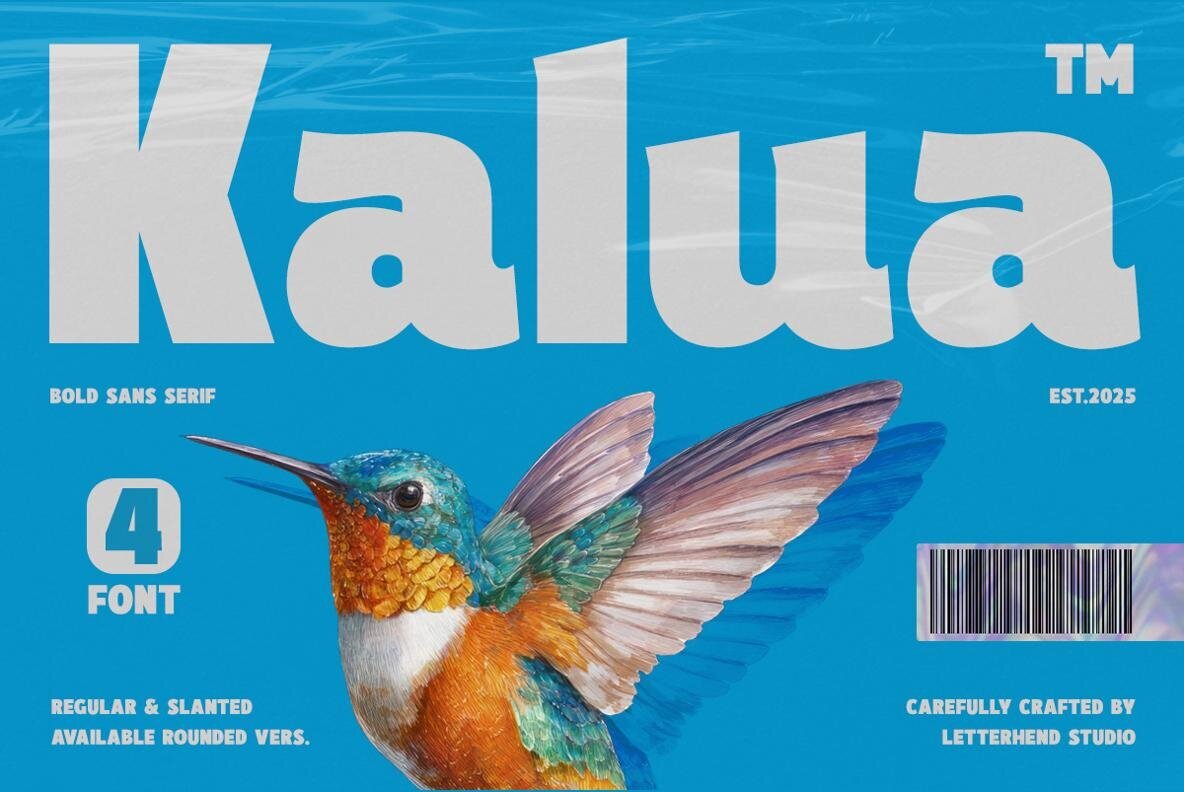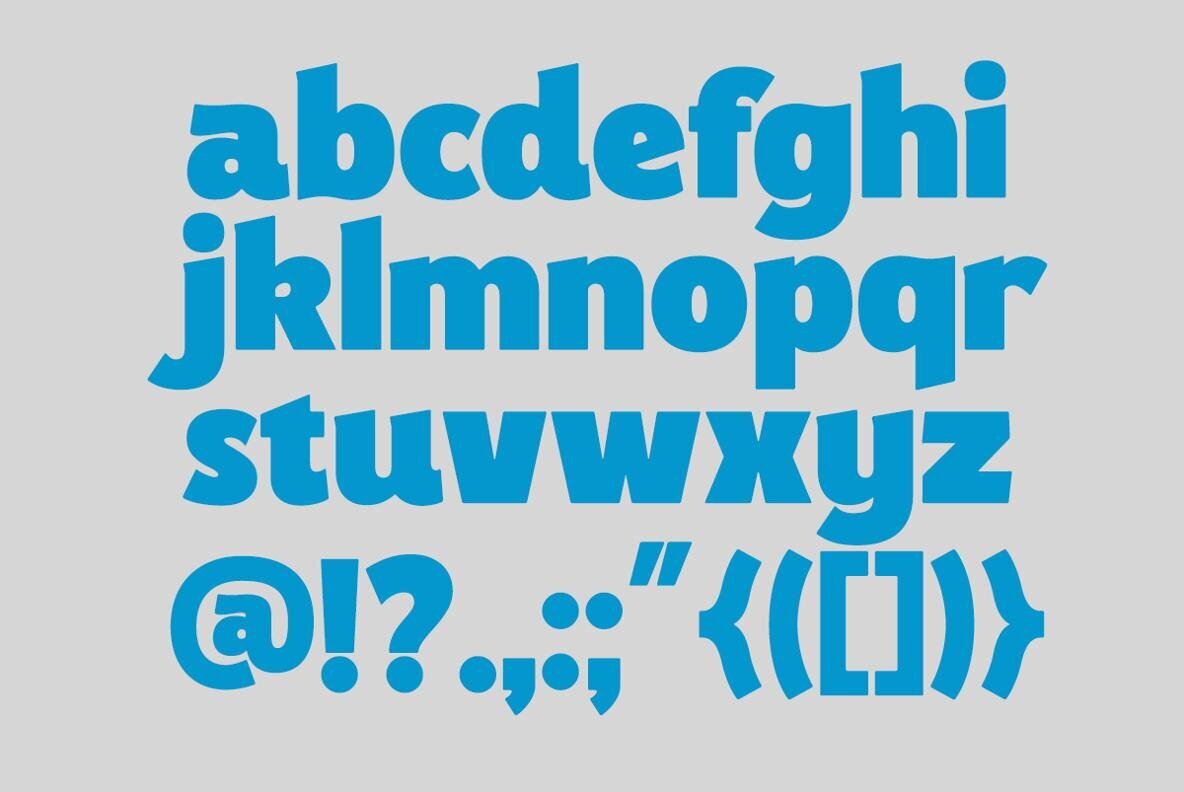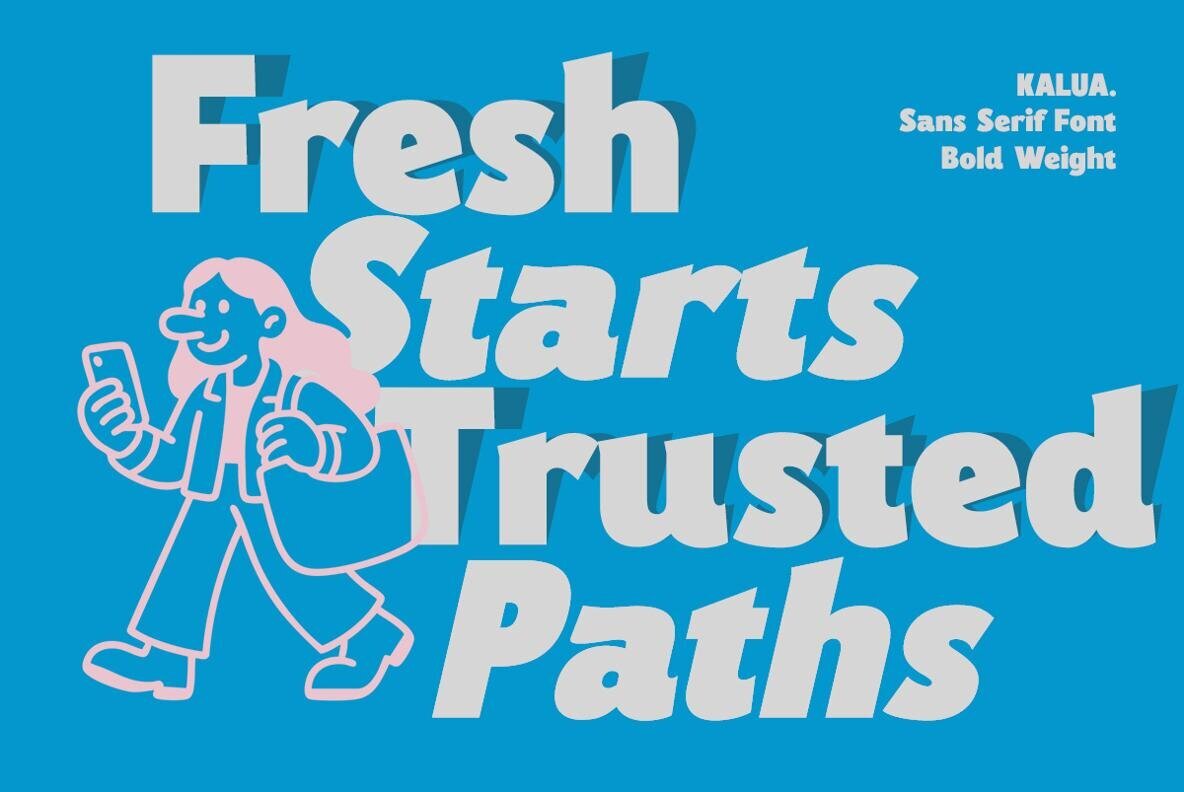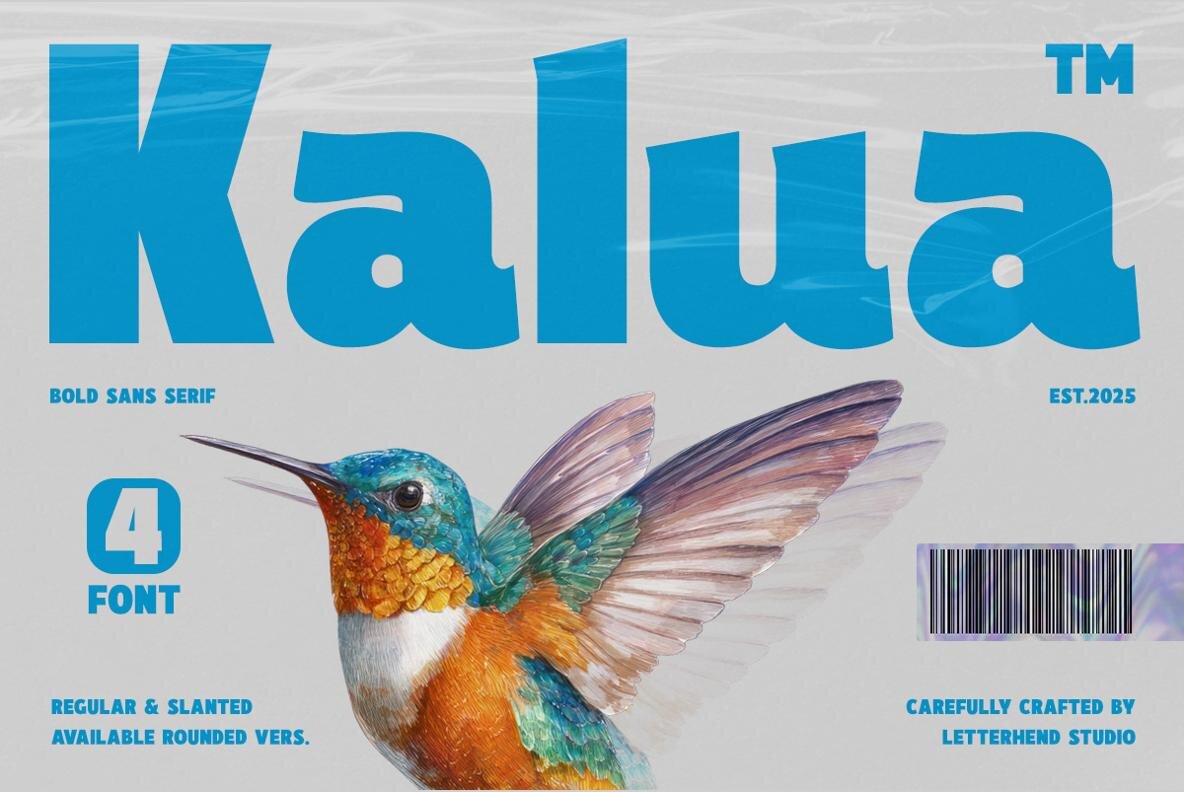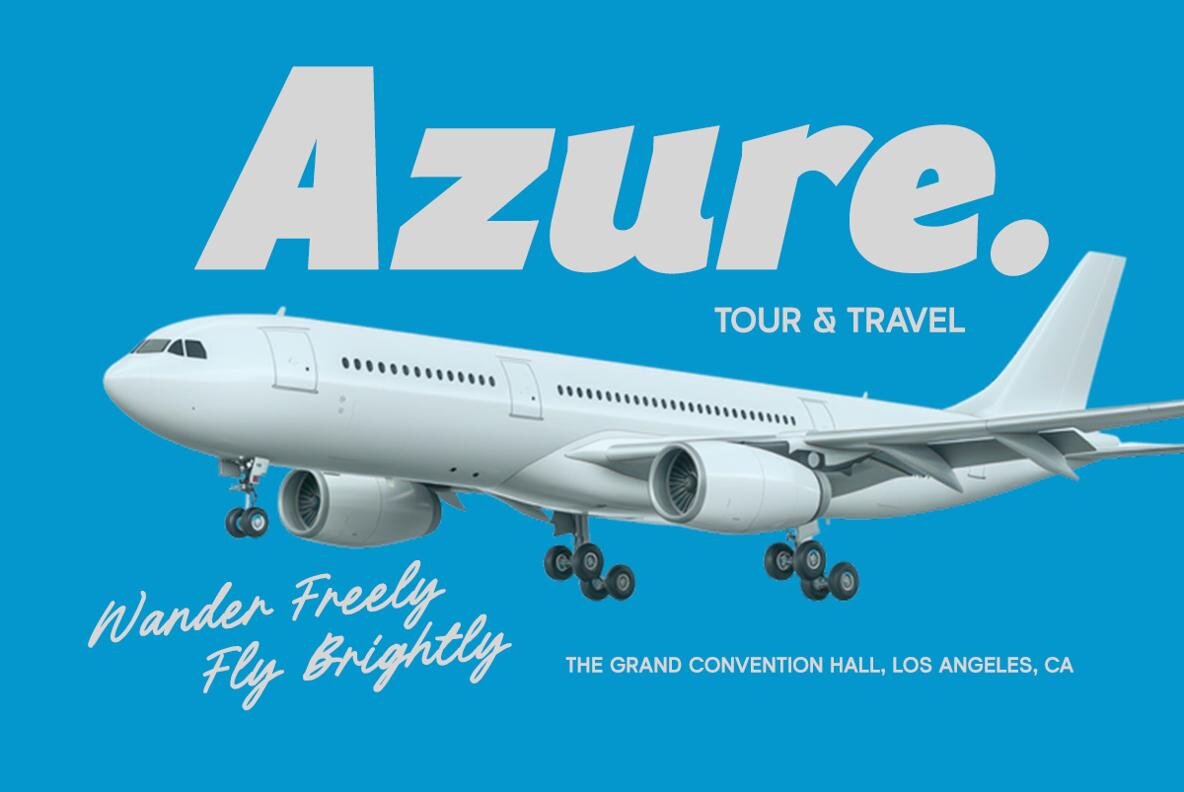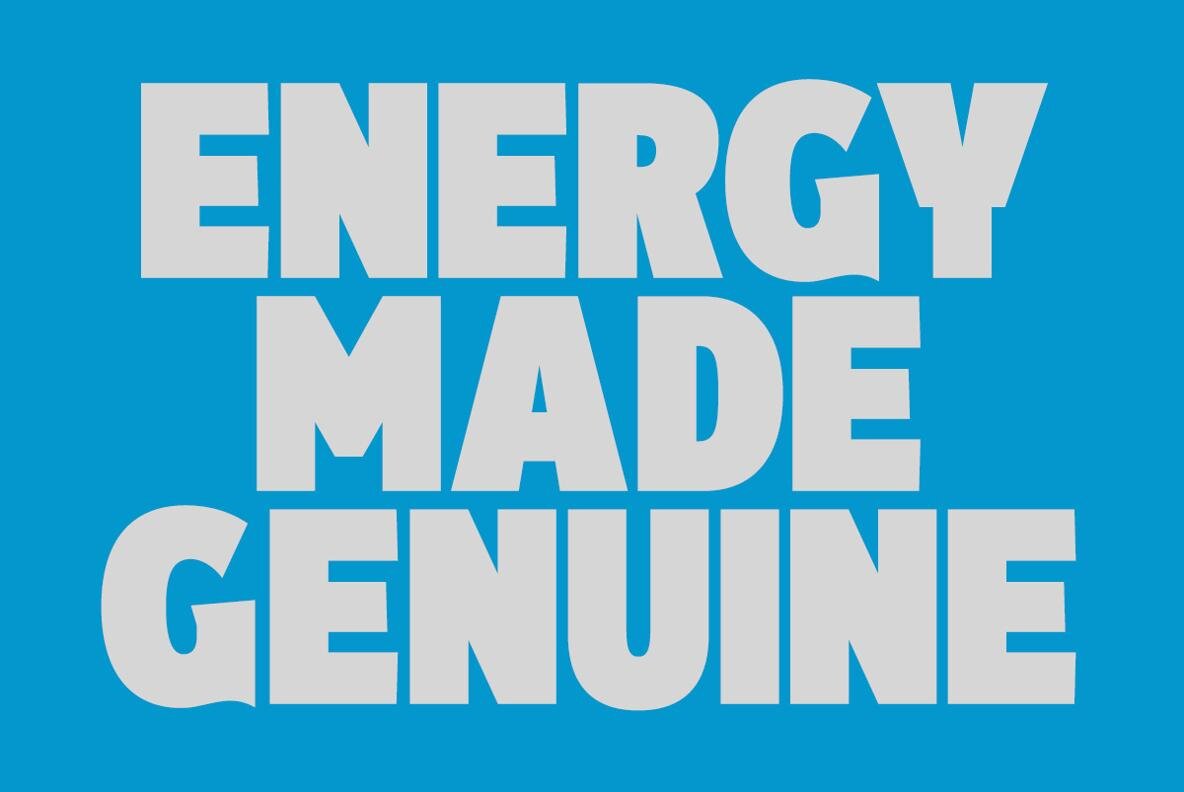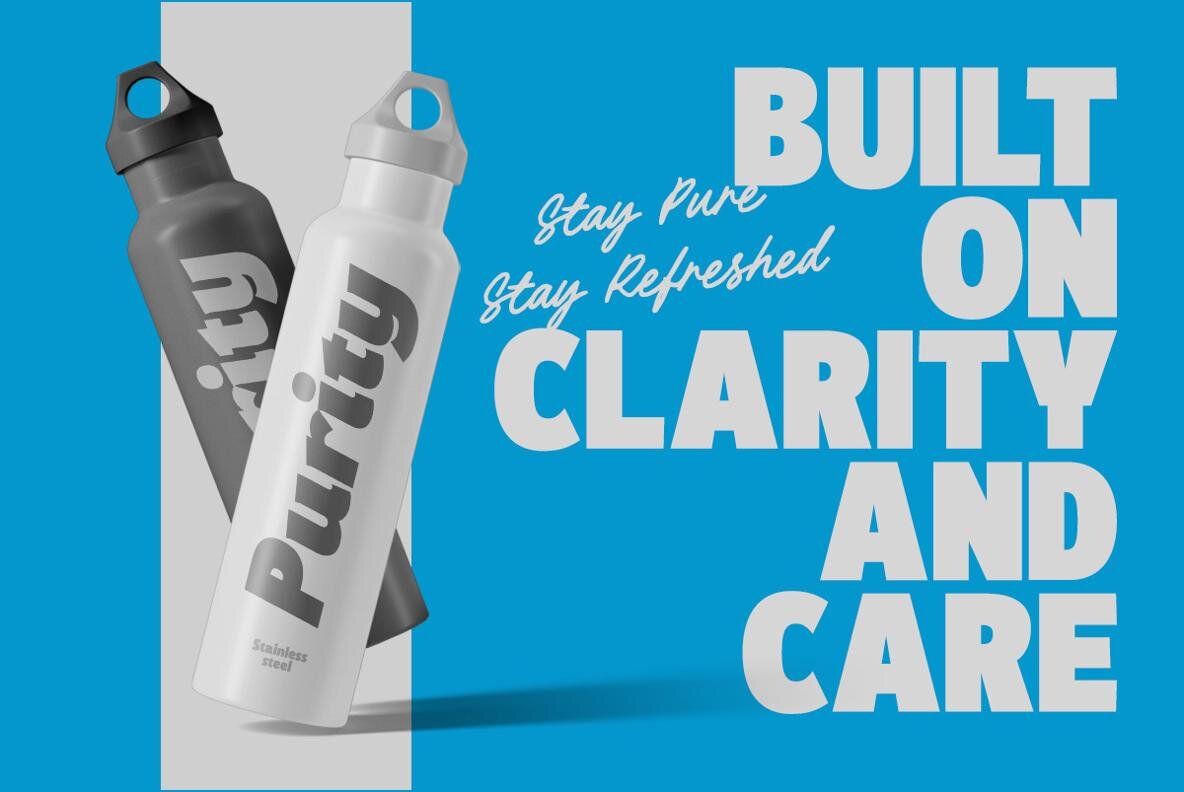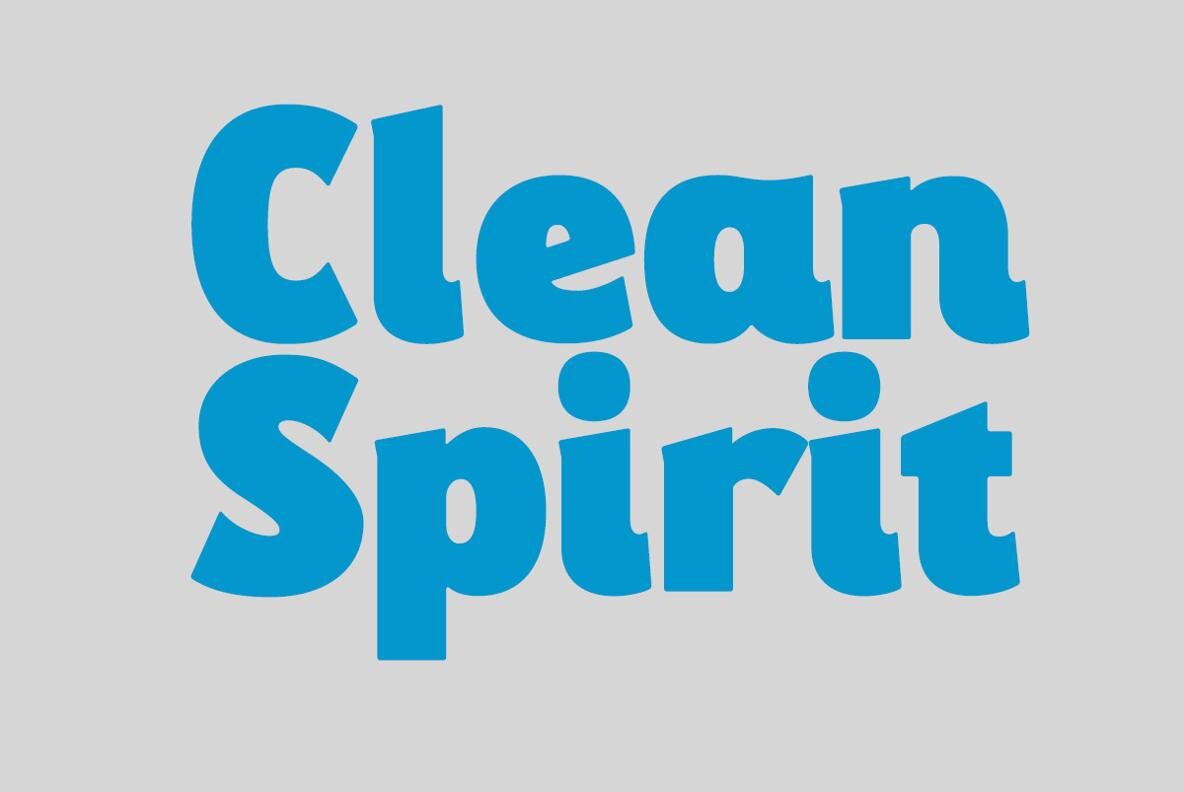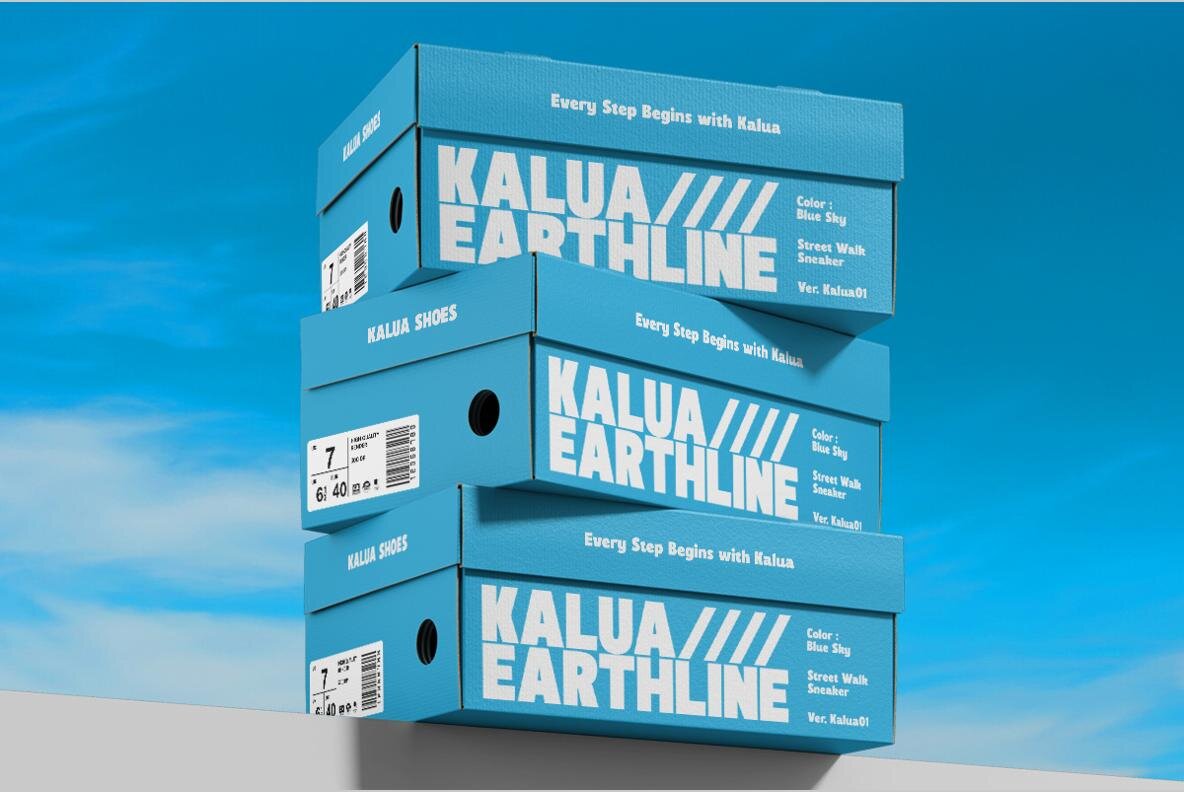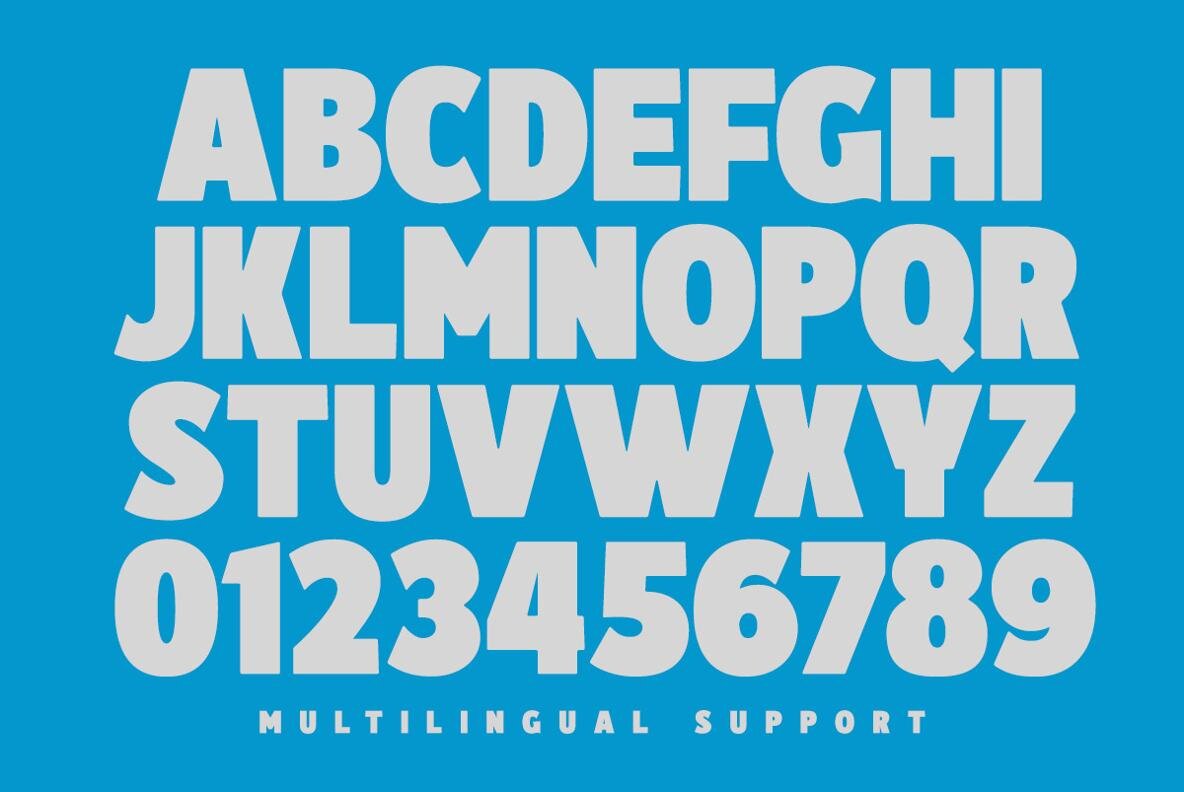
Kalua Font
Kalua Regular
Kalua Rounded
Kalua Rounded Slanted
Kalua Slanted
Kalua brings a strong sense of purpose to modern design. This sans-serif font features clean curves, steady proportions, and smooth edges, achieving a balance between playfulness and professionalism. Its geometry offers warmth and clarity, making it suitable for branding, packaging, posters, and digital applications. Graphic designers will appreciate Kalua’s adaptability and clear visual presence in both display and functional contexts. Designed for optimal usability, Kalua’s structural clarity ensures legibility across scales while maintaining a welcoming visual tone. The letterforms encourage harmonious layouts, supporting a spectrum of design environments from editorial spreads to social media graphics.Kalua: Bold Sans-Serif With Confident Geometry